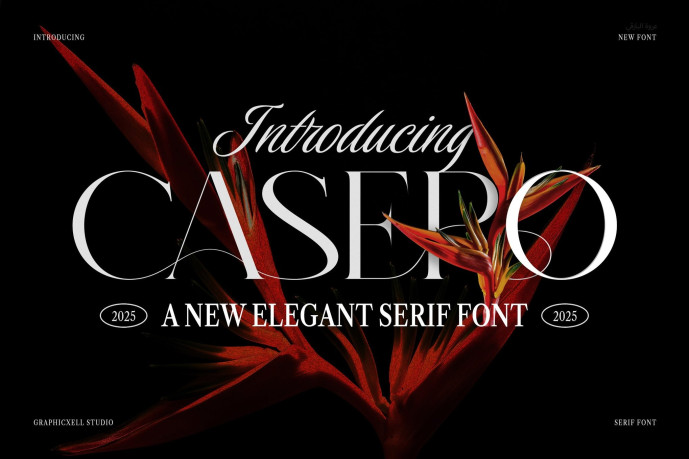
Casero Elegant Serif Font
Designer: Graphicxell
Casero Elegant Serif Font is a refined typeface designed to elevate your creative work with elegance, precision, and timeless appeal. It blends classic shapes with a fresh modern twist, allowing every design to stand out gracefully. Because of its balance between strength and softness, Casero feels both luxurious and contemporary at once.
This elegant serif font was carefully crafted to combine beauty and function. Therefore, it works beautifully across a wide range of applications — from branding and editorial layouts to packaging and invitations. Whether you design for fashion, lifestyle, or digital media, Casero adds a distinctive and professional tone that captures attention instantly.
Key Features of Casero Font:
• Elegant and modern serif design
• Smooth contrast between thick and thin strokes
• Stylish ligatures for creative flexibility
• Ideal for branding, fashion, and editorial use
• Perfect for invitations, packaging, and web design
• Includes uppercase letters, punctuation, and numerals